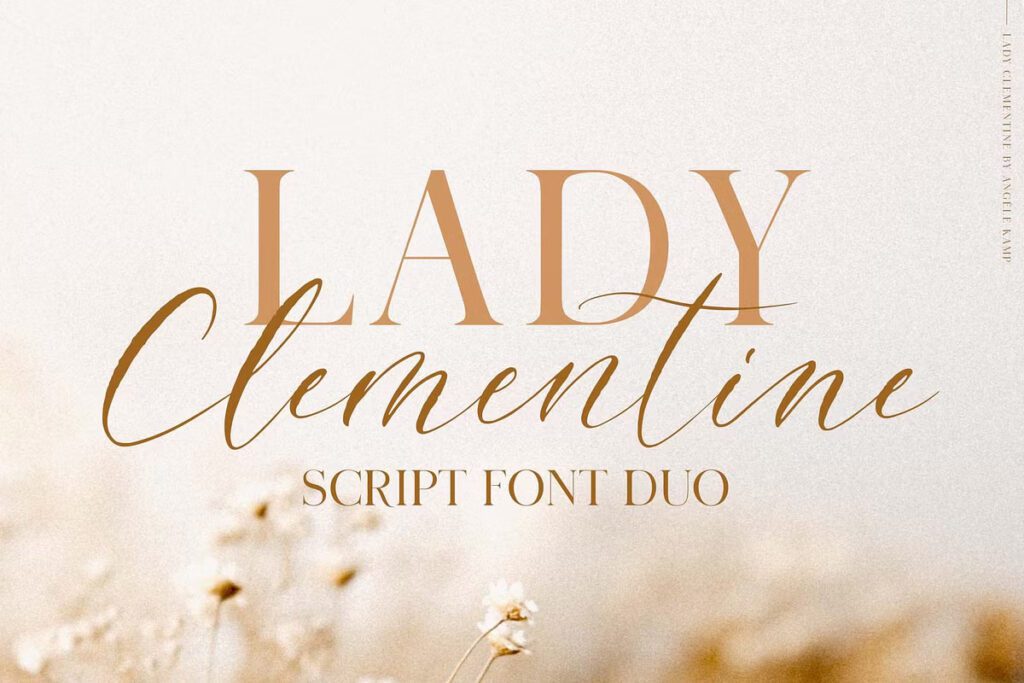
Introducing Lady Clementine: A Luxurious Script and Serif Font Duo
If you’re in search of a sophisticated and elegant font combination, look no further than Lady Clementine. This beautiful pairing of a textured script font and a luxurious serif typeface adds timeless elegance and style to your designs. Whether you’re working on wedding invitations, branding projects, or stylish logos, Lady Clementine offers the perfect blend of modern calligraphy and classic serif elegance.
Why Choose Lady Clementine?
The Lady Clementine script font gives off the feel of authentic, modern calligraphy, adding a personal, handwritten touch to your work. Paired with the sophisticated serif font, this duo creates balance and harmony, making it ideal for formal and feminine designs. With its romantic flair, Lady Clementine is a must-have for designers working on wedding projects, personal branding, or any design that requires a luxurious and timeless touch.
Key Features of Lady Clementine:
Script and Serif Duo: The elegant script font comes with a textured, hand-drawn look, while the serif complements it perfectly with a clean, luxurious style.
Perfect for Weddings and Events: This font duo is ideal for creating wedding invitations, save-the-date cards, and other elegant stationery.
Authentic Calligraphy Look: The script font’s texture adds a realistic, handwritten feel to your designs, giving them a more personalized touch.
Best Uses for Lady Clementine:
Wedding Invitations: Create romantic, elegant wedding stationery with the script and serif duo.
Feminine Branding: Lady Clementine adds a touch of elegance and femininity to logos, packaging, and other branding materials.
Save-the-Date Cards: The romantic, handwritten script font is perfect for memorable and stylish save-the-date cards.
Stylish Logos: Use the script for a personalized feel and pair it with the serif for a professional look in logo design.